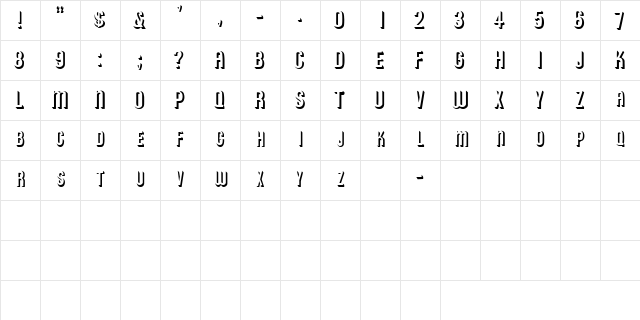
ModicumSCapsSSK Regular
Design Context for ModicumSCapsSSK Typeface
ModicumSCapsSSK is a composed and adaptable typeface that performs quietly and consistently across a wide range of design contexts.